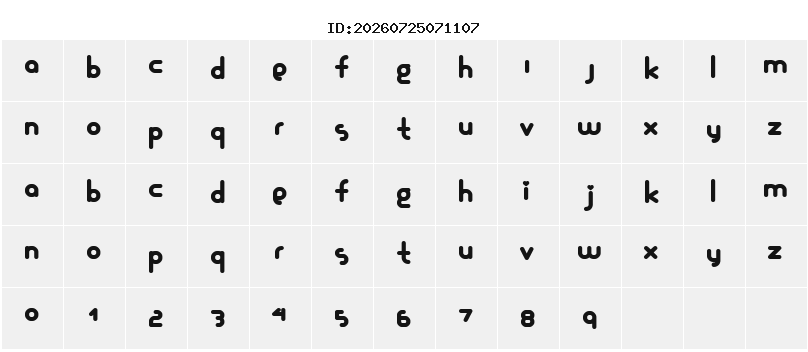
Glamourgirl Preview
• Font Name: Glamourgirl
• Full Font Name: Glamourgirl
About Glamourgirl.ttf
Glamourgirl.ttf is a modern, elegant sans-serif font designed for ultimate readability and visual harmony. Perfect for branding, headlines, web design, and print materials.